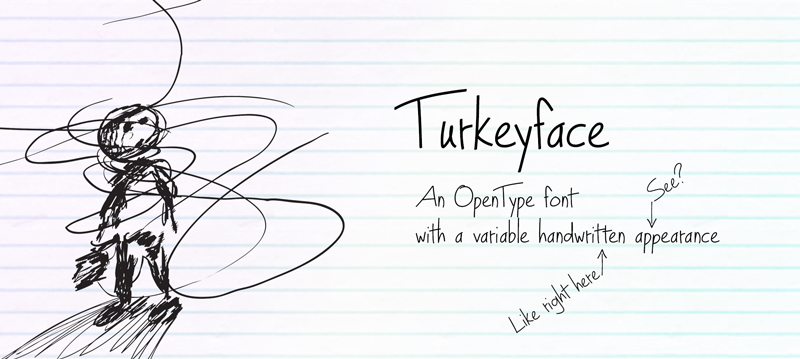
Preview and download Turkeyface Font. Created by Lee Batchelor in Script Handwritten styles with Donationware license.
This font is free for both personal and professional use. I'm always pleased as punch when I get a donations, however small, so feel free to donate here if you wanna. You're the best and everyone thinks so. Cool thing: All of my handwritten fonts utilize OpenType alternatives for a more realistic handwritten appearance. With OpenType features turned on, double letters will appear slightly different, just like handwriting. |